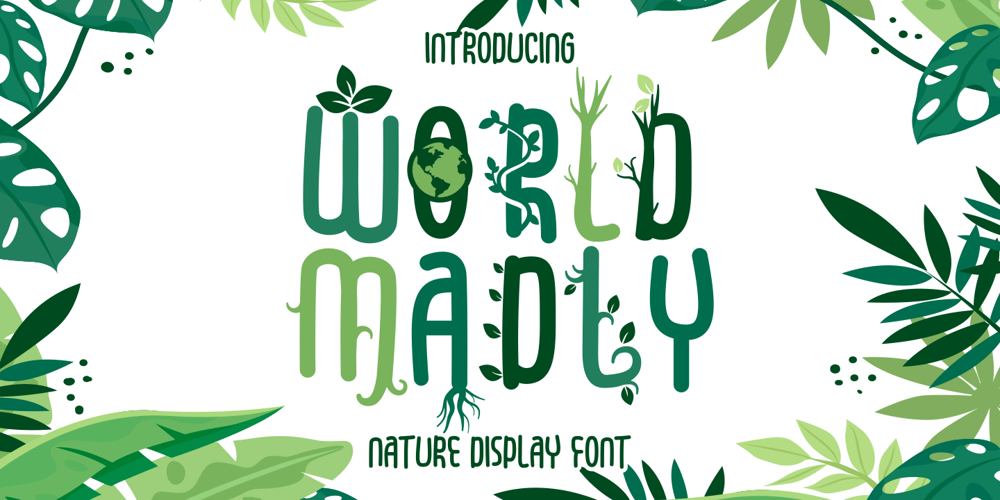
World Madly Font Family was designed by Putra Novembria Candra Kusuma and published by Putracetol. World Madly contains 10 styles and family package options. World Madly – Display Font is a delightful and quirky typeface designed with an environmental theme in mind. This font exudes a sense of fun and playfulness with its rounded and condensed letterforms, making it a perfect choice for projects related to nature and the Earth.Featuring a remarkable array of ten alternative font versions, each inspired by elements of the Earth and plant life such as tree trunks, leaves, globes, roots, and trees, World Madly is purposefully created for Earth Day-themed designs. It seamlessly integrates into projects with themes centered around nature, green initiatives, and the Earth.This font is an ideal choice for creating designs like Earth Day-themed invitations, birthday invites, party decorations, logos, stickers, clothing, packaging, children’s books, magazines, and more.With its crafty and playful style, World Madly lets you express your love for the planet and the environment in your creative projects, adding a touch of eco-consciousness.